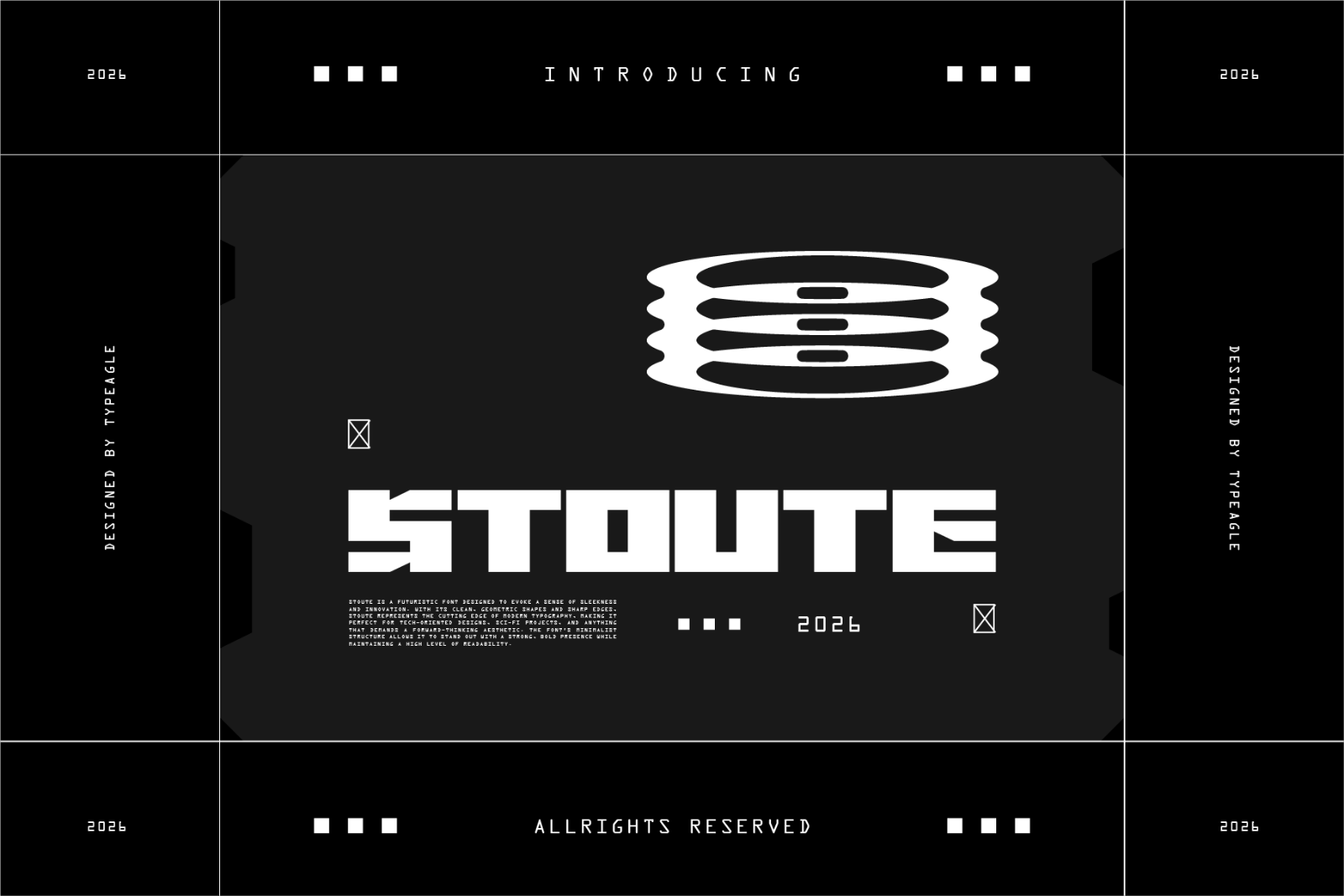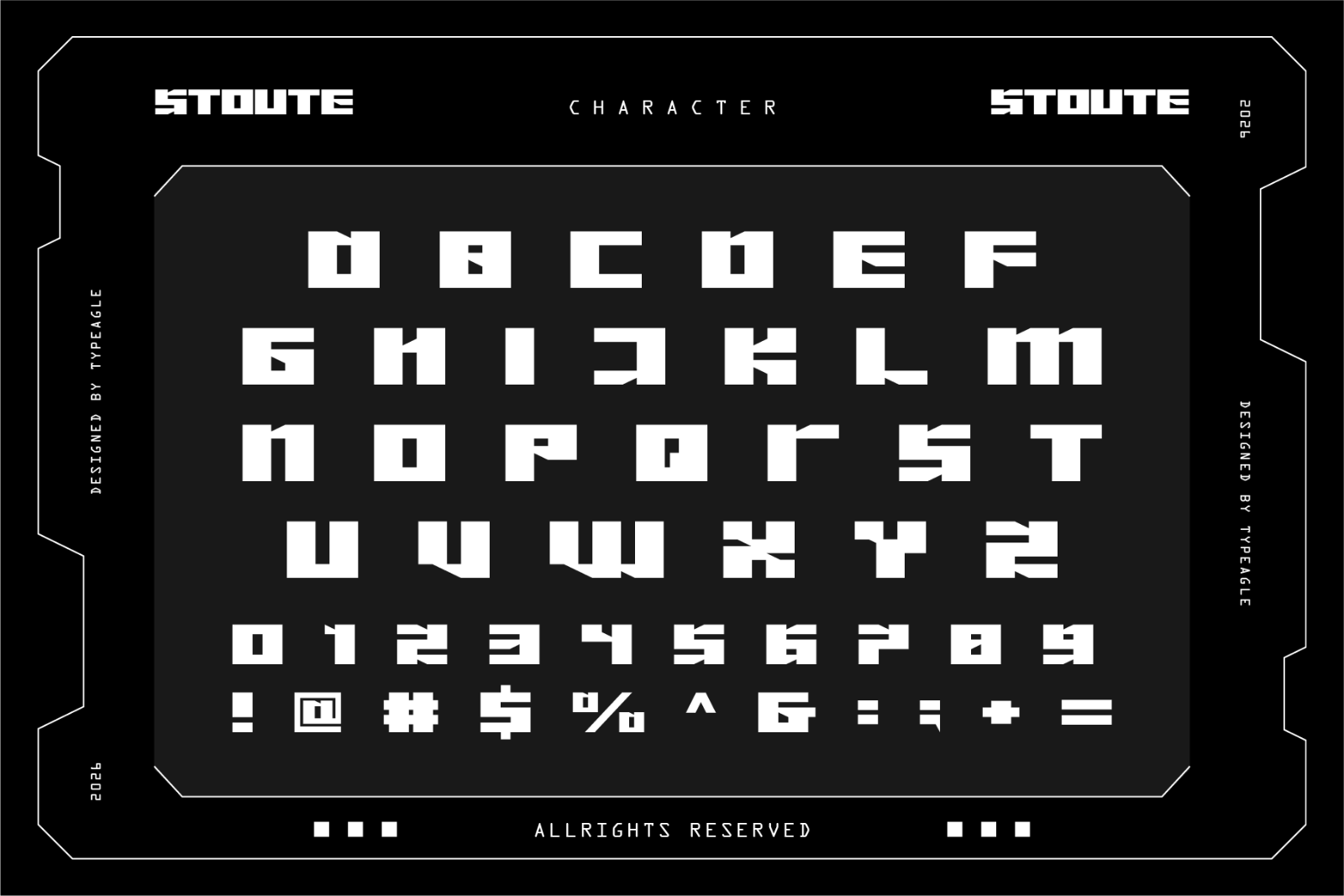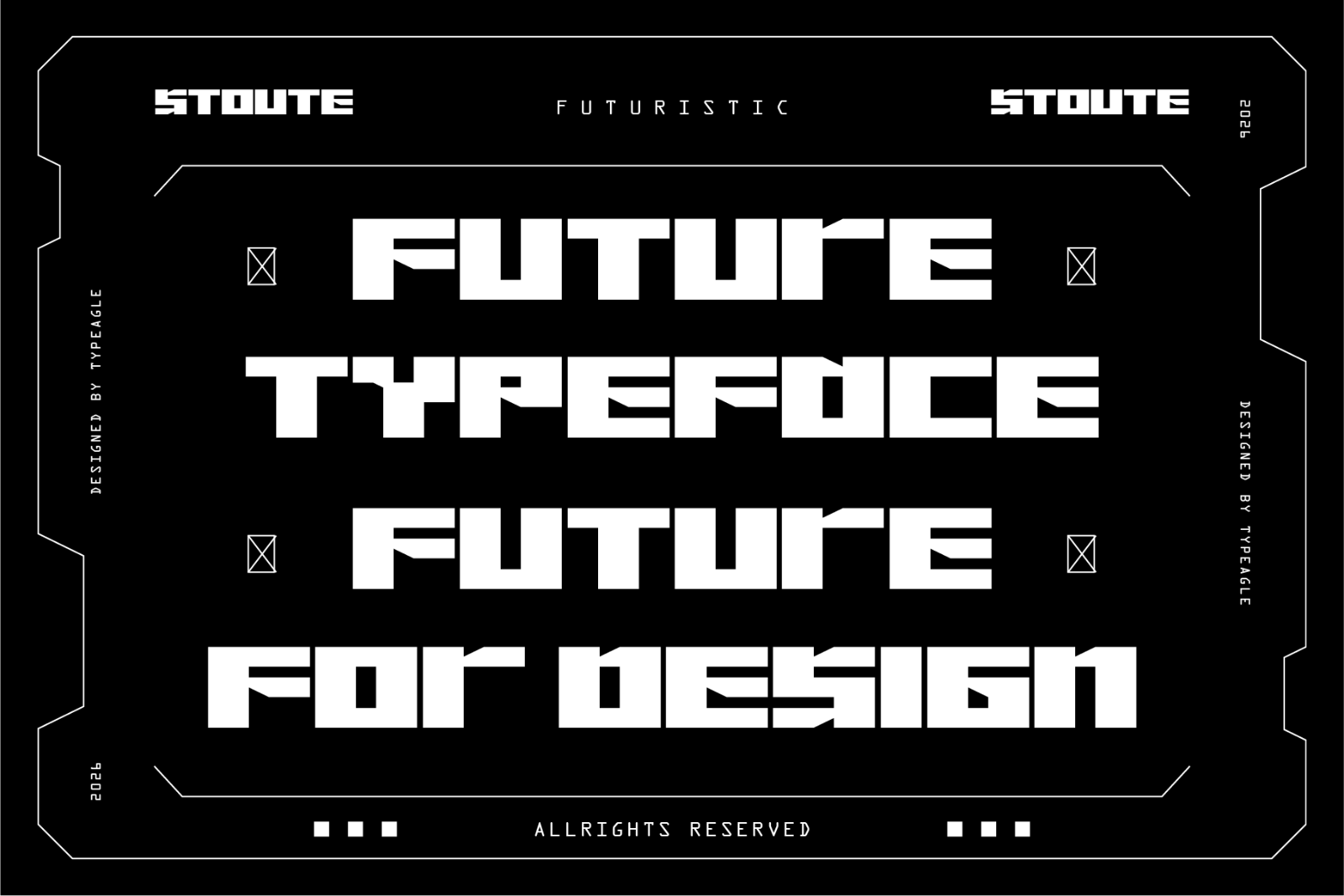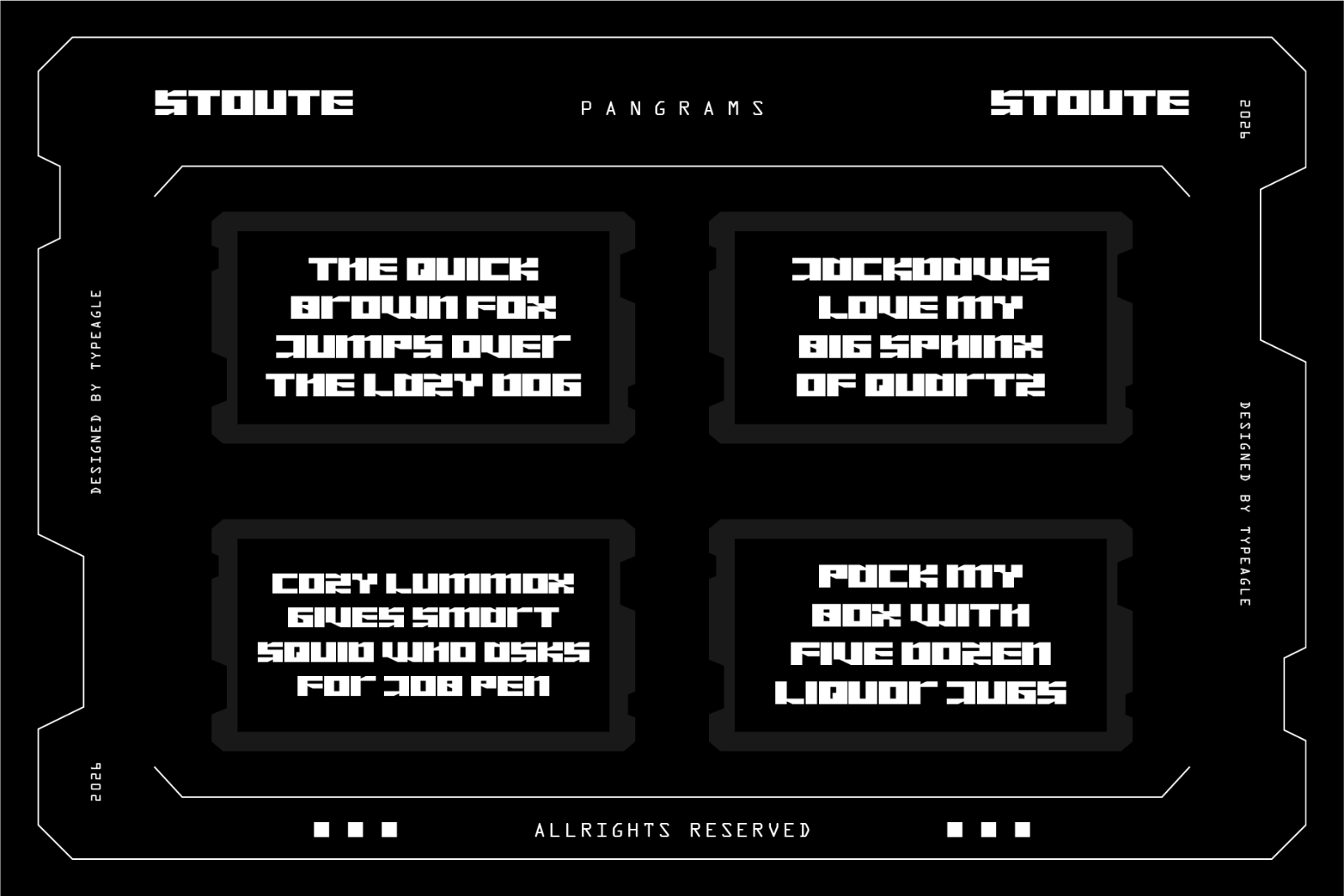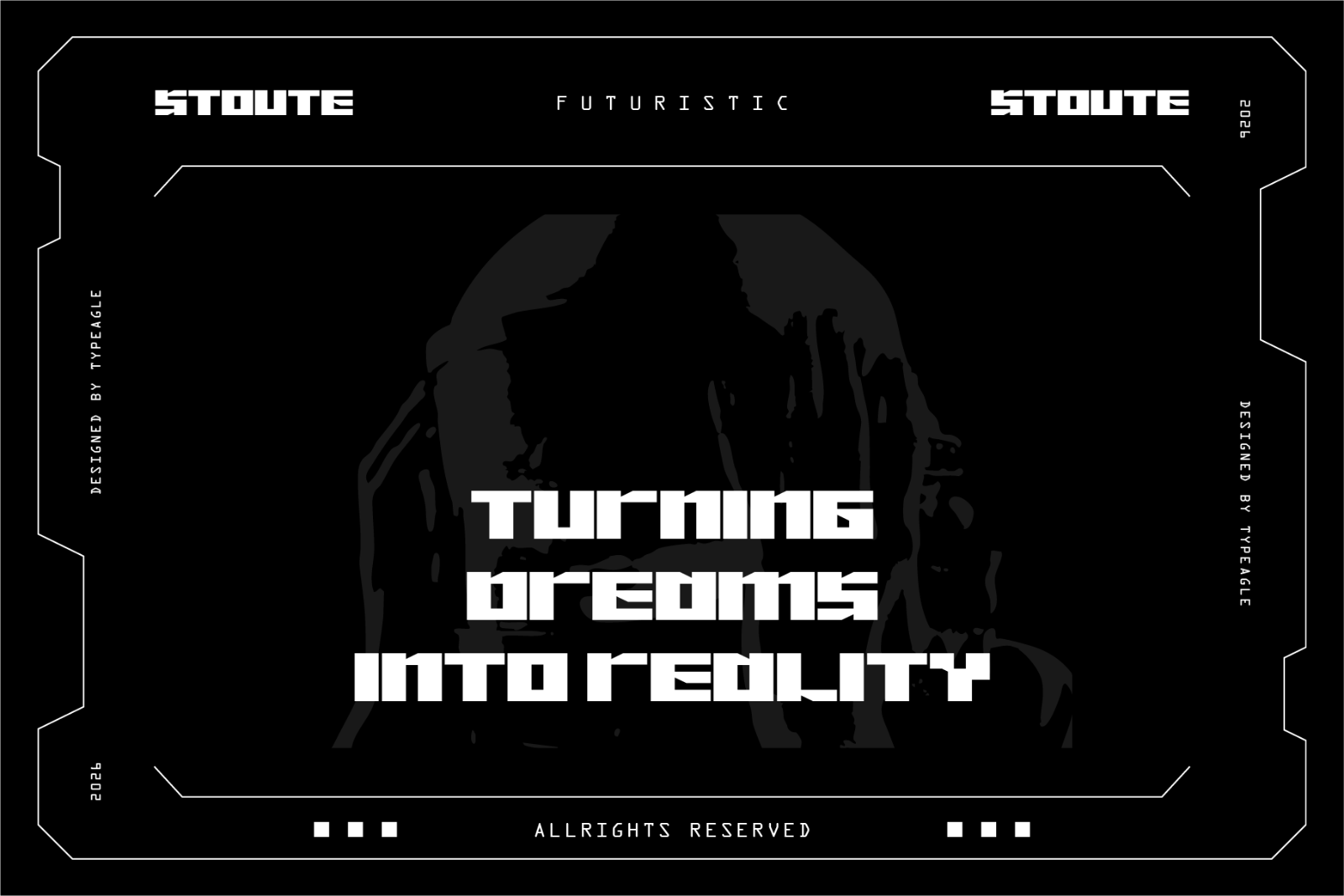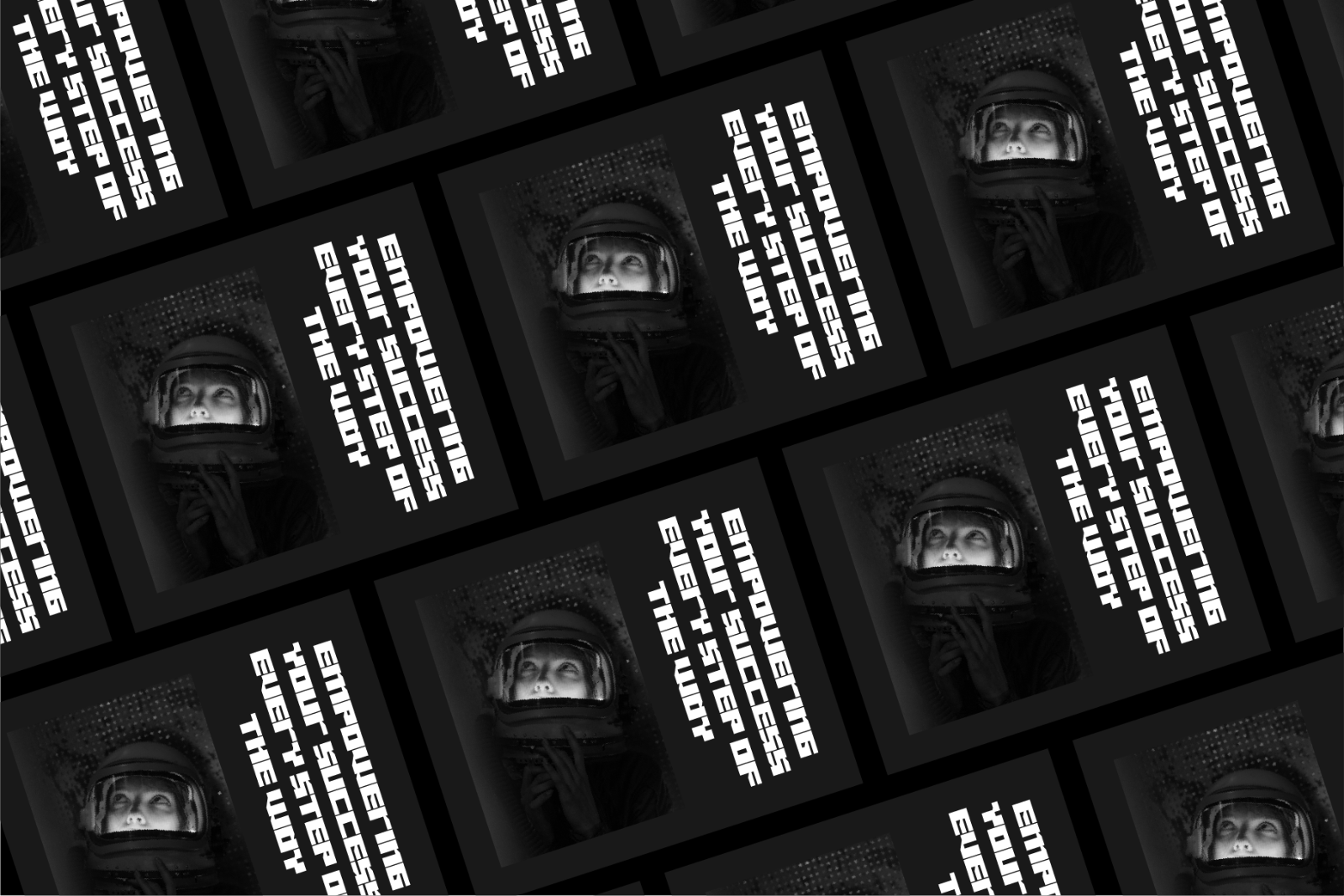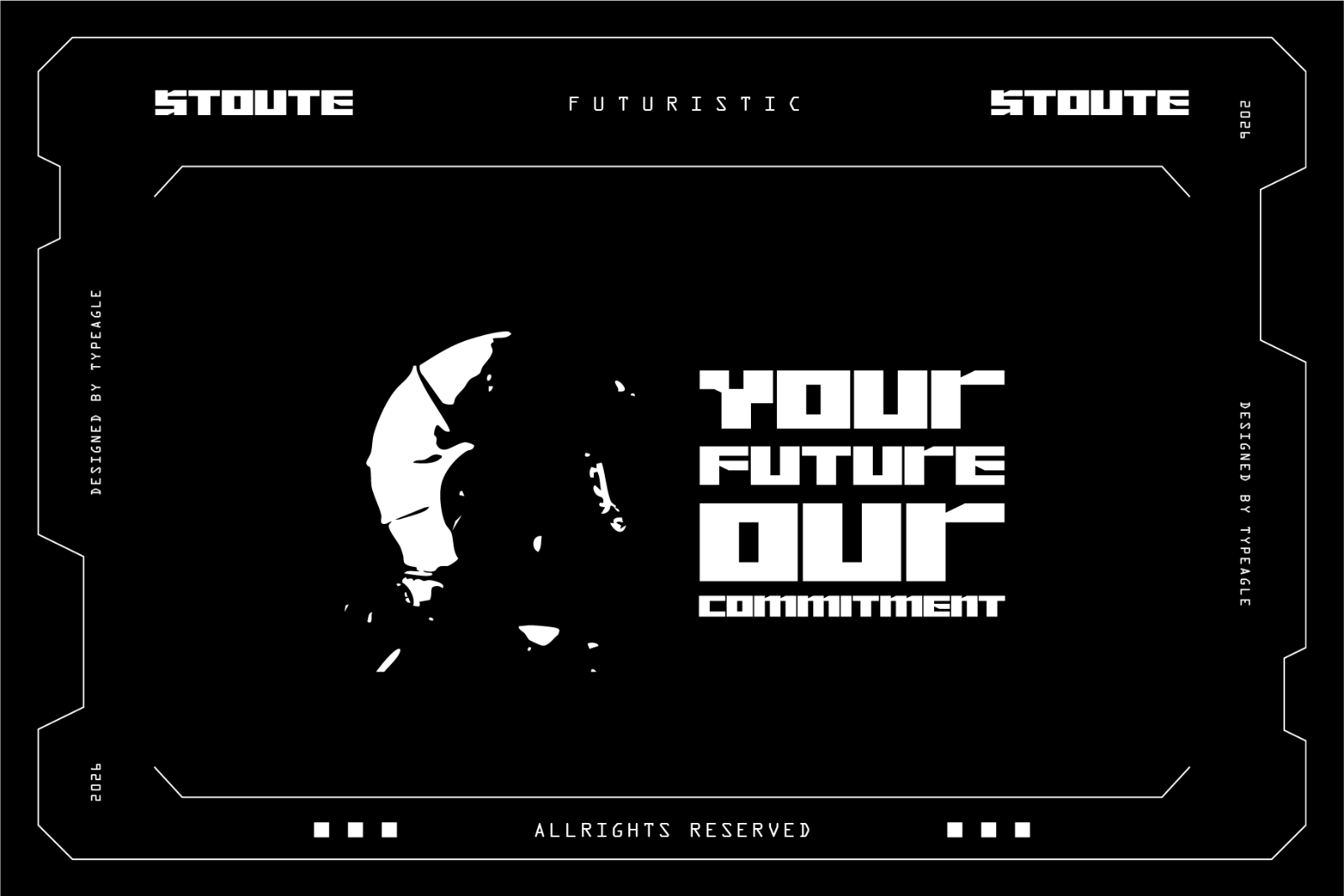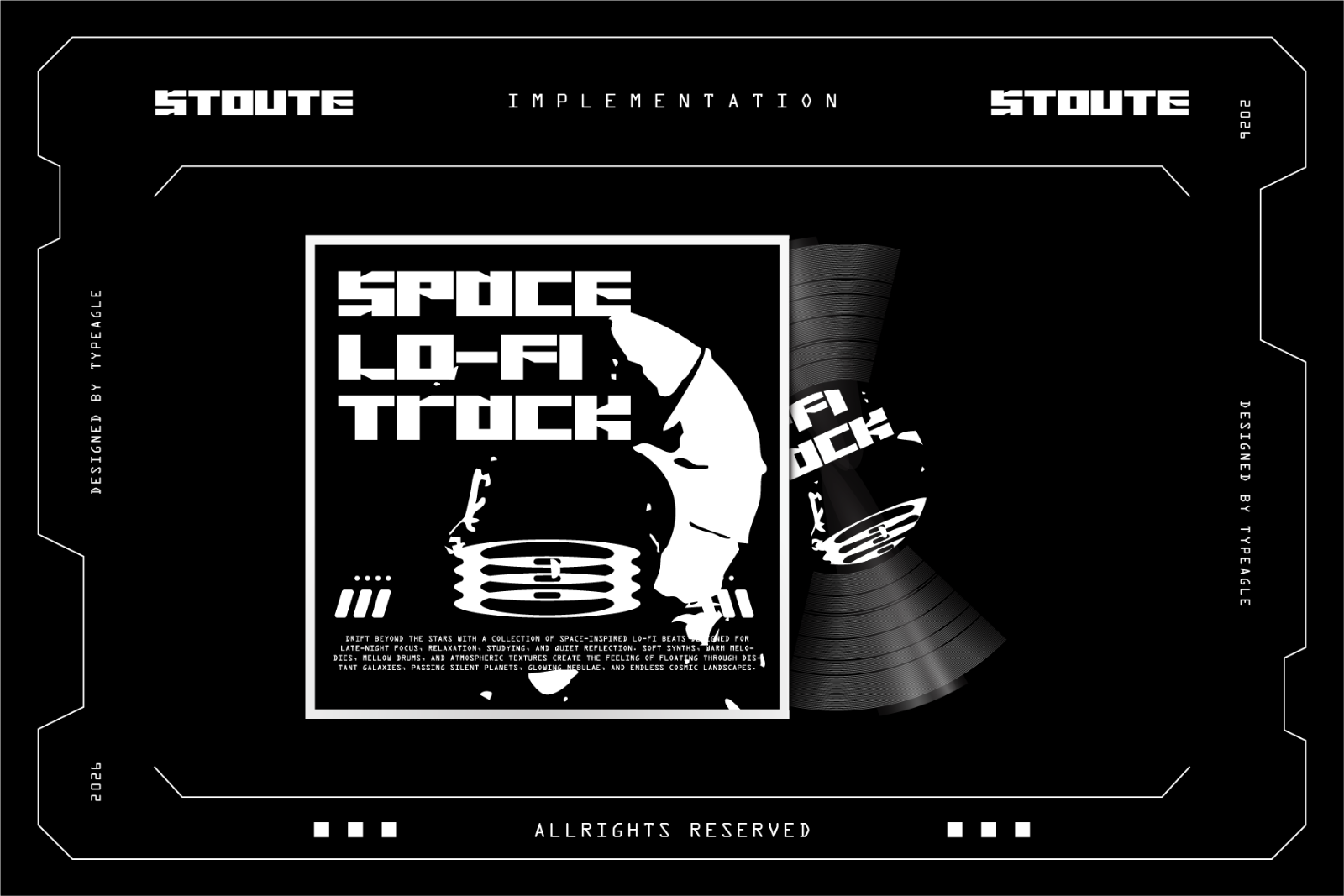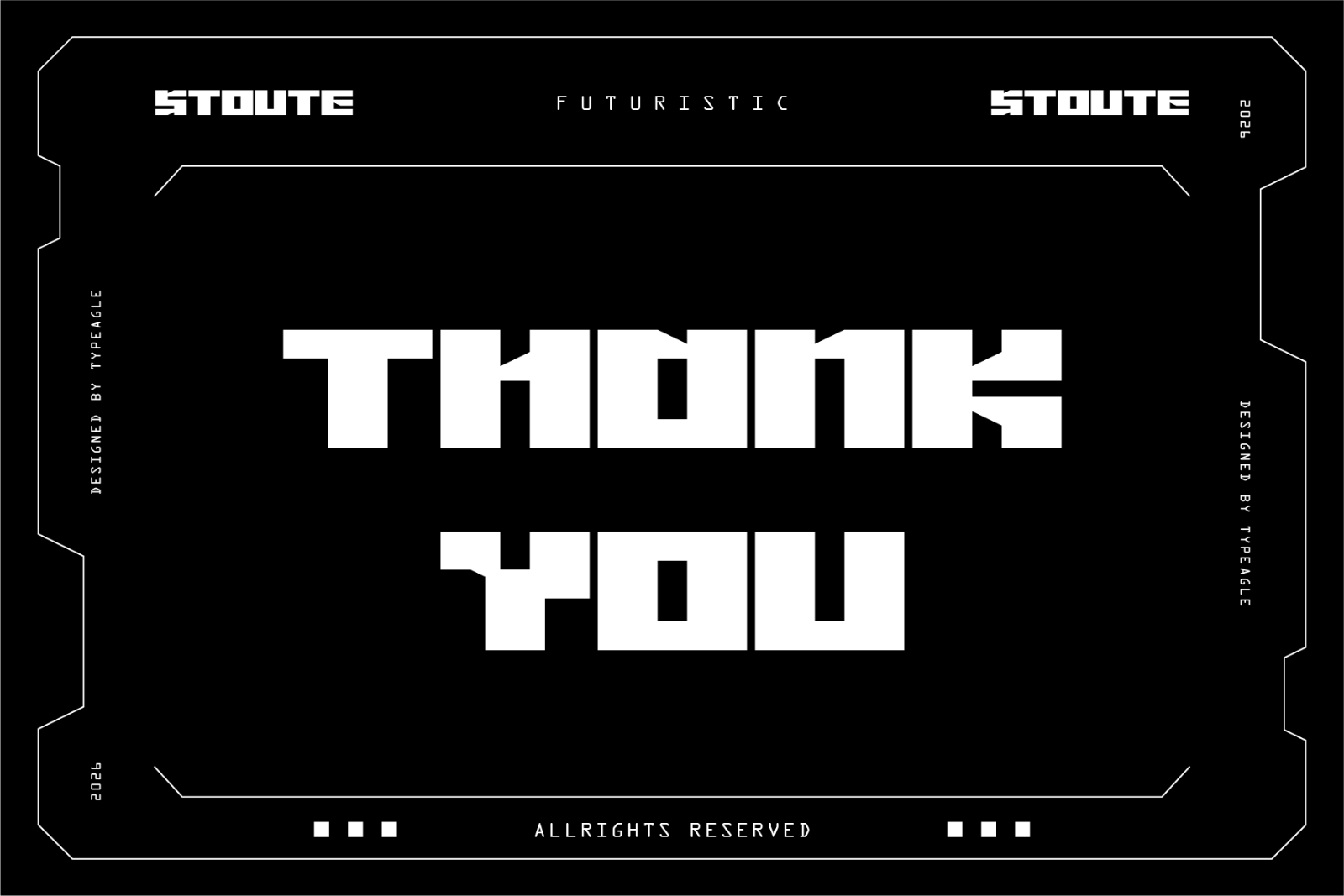
Stoute is a futuristic font designed to evoke a sense of sleekness and innovation. With its clean, geometric shapes and sharp edges, Stoute represents the cutting edge of modern typography, making it perfect for tech-oriented designs, sci-fi projects, and anything that demands a forward-thinking aesthetic. The font's minimalist structure allows it to stand out with a strong, bold presence while maintaining a high level of readability.